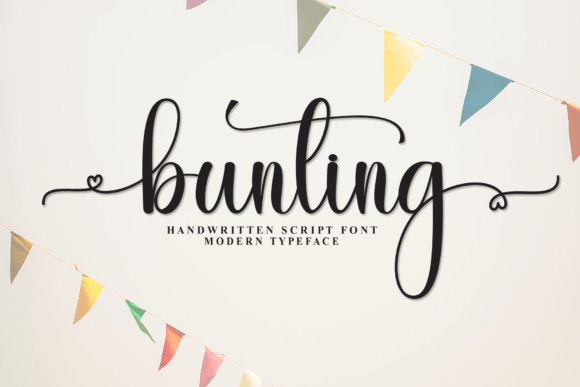
Unleashing Whimsy with the Bunting Font
You’re sitting at your desk, surrounded by scraps of paper, glue, and an endless array of colorful ribbons. Your creativity is in full bloom as you craft the perfect wedding invitation for your best friend’s special day. The problem is, your design needs a dash of whimsy to bring it to life. That’s where the enchanting Bunting font comes in – a handwritten display font that exudes warmth and playfulness, making it the perfect addition to your design creations.
The Bunting font is a valuable tool for designers, effortlessly infusing an engaging vibe into any project that calls for a whimsical flourish. Whether you’re crafting cards, designing wedding invitations, or simply adding a touch of personality to your social media posts, this font is sure to bring a smile to your face and a touch of magic to your designs.
Bunting Font Key Features
- Size: 6 styles, including regular, bold, italic, bold italic, condensed, condensed bold
- Unique Characteristics: Hand-drawn design with a playful, whimsical feel, suitable for titles, headings, and decorative text
- Font Family: Bunting
Bunting Font Review
Overall, I think Bunting Font is a fun and quirky addition to any design project. ✨ I love how it adds a playful touch to headings and titles, making it perfect for projects like children’s books, party invitations, and other whimsical designs. ✨ The font’s unique character set, including ornaments and swashes, offers endless possibilities for creative expression.
However, I do have a few reservations. ⚠️ One of the main limitations is the font’s readability at smaller sizes. ⚠️ At font sizes below 18px, the characters can become fuzzy and difficult to decipher. This may not be a major issue for headings and titles, but it could be a problem for body text. ⚠️ Additionally, the font’s ornament set, while charming, can be overwhelming if used excessively. It’s essential to strike a balance between using the ornaments and maintaining readability.
Here are some of the font’s strengths and weaknesses:
- Unique character set with ornaments and swashes
- Perfect for playful and whimsical designs
- Readability issues at smaller font sizes
- Ornaments can be overwhelming if used excessively
In conclusion, Bunting Font is a delightful addition to any designer’s toolkit. While it may have its limitations, its unique character set and playful feel make it an excellent choice for the right projects.
Getting the Most Out of Bunting Font
To get the most out of Bunting Font, consider the following tips:
- Use Bunting Font for titles and headings to add a touch of whimsy to your design.
- Pair Bunting Font with other playful fonts to create a cohesive and eye-catching design.
- Experiment with different font sizes and colors to add depth and visual interest to your design.
Bunting Font is commonly used for:
- Wedding invitations and